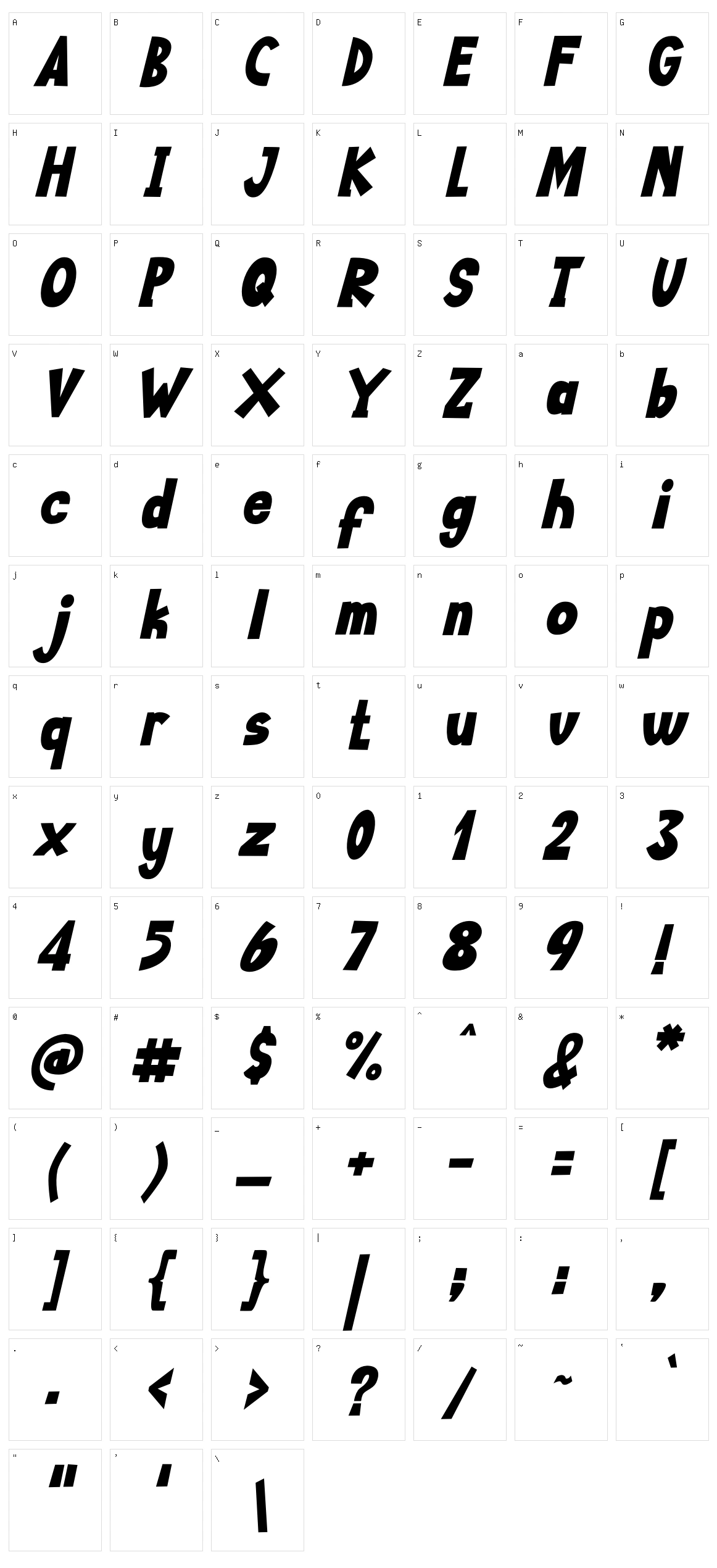
The free font Happy Food is carefully designed by Letterena Studios, showcasing a thoughtful balance of creativity and usability and falls under the Cartoon font style. When you download the ZIP file, it contains only 170.74 KB of font files, making it lightweight and quick to download. Please review the license details below to understand permitted usage and distribution rights. If license information is not available, we recommend using this font for personal projects only or contacting the author directly for commercial usage permissions.